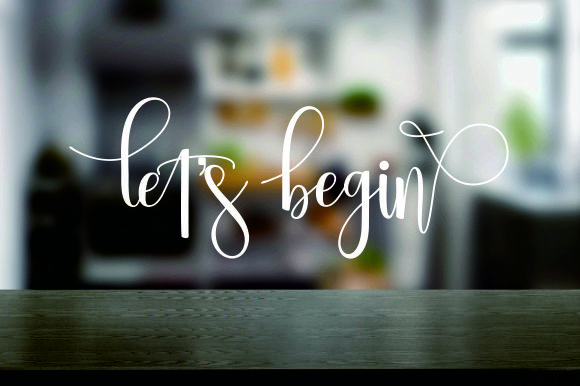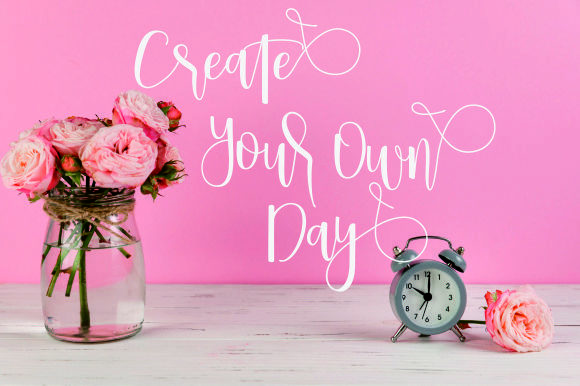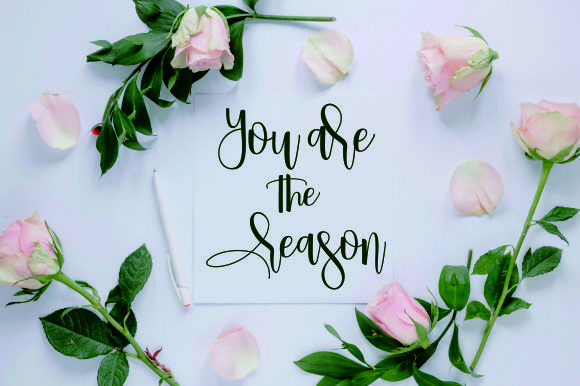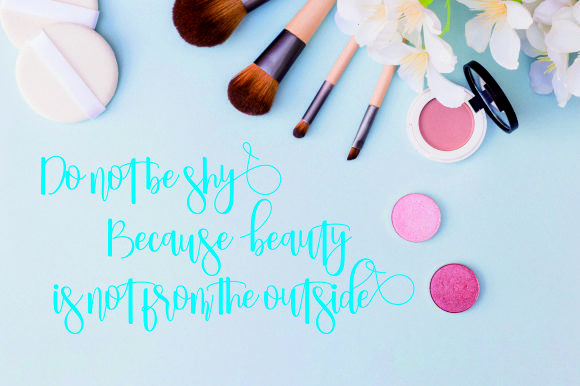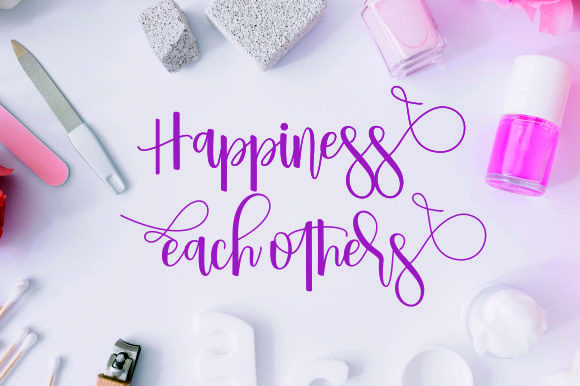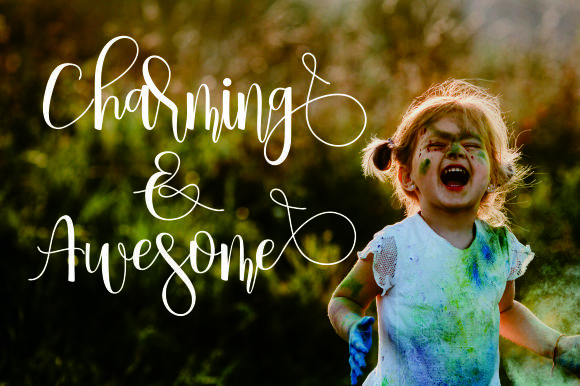
Introduction to Sallynda Script Font
The Sallynda is a modern script font.
It was created with a brush and ink, and includes an irregular baseline It’s perfect for use in watercolor designs, blog headers, branding, t-shirts, weddings, social media, product designs, stationery, advertising, apparel, covers, books, business cards, greeting cards, branding, merchandise, invitations and handmade quotes, and more.
Key Features of Sallynda Script Font